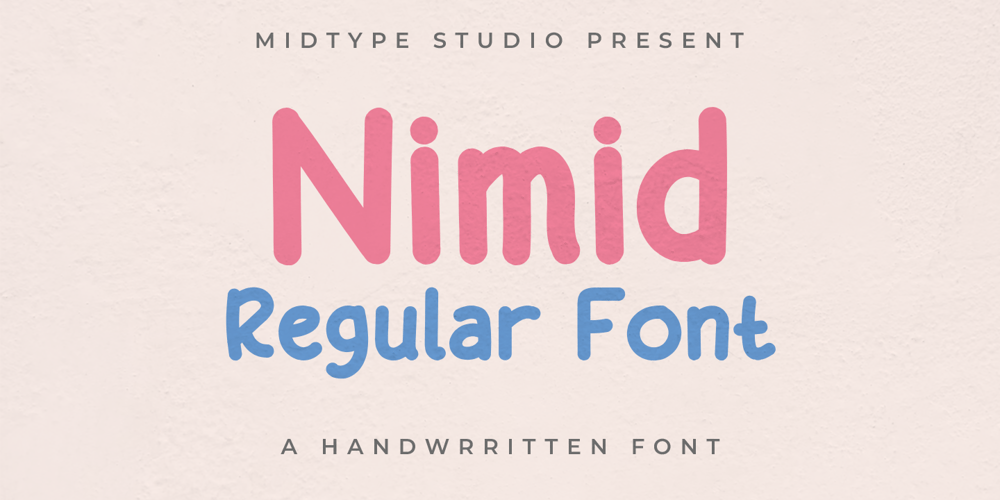
Nimid
Nimid font
Nimid Font Family was designed by Dwi Nur Hamida and published by Midtype. Nimid contains 1 styles and family package options. Introducing Nimid Regular typeface, it looks natural like a handmade which has a fast dry brush style. That is ideally suited for advertising and packaging, logo, branding and creative industries. The Nimid Regular typeface is designed to make your next great project look more natural and stand out.